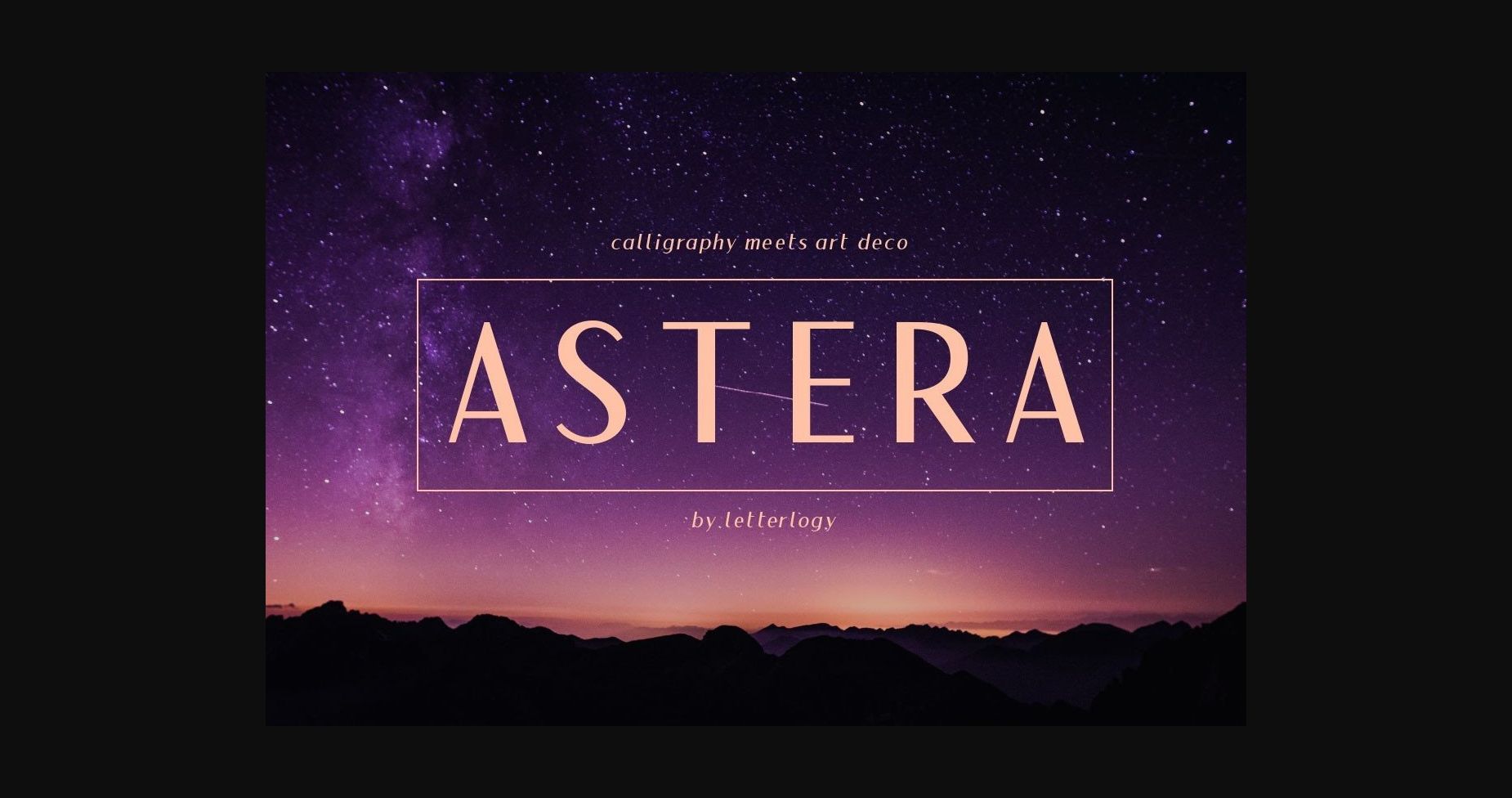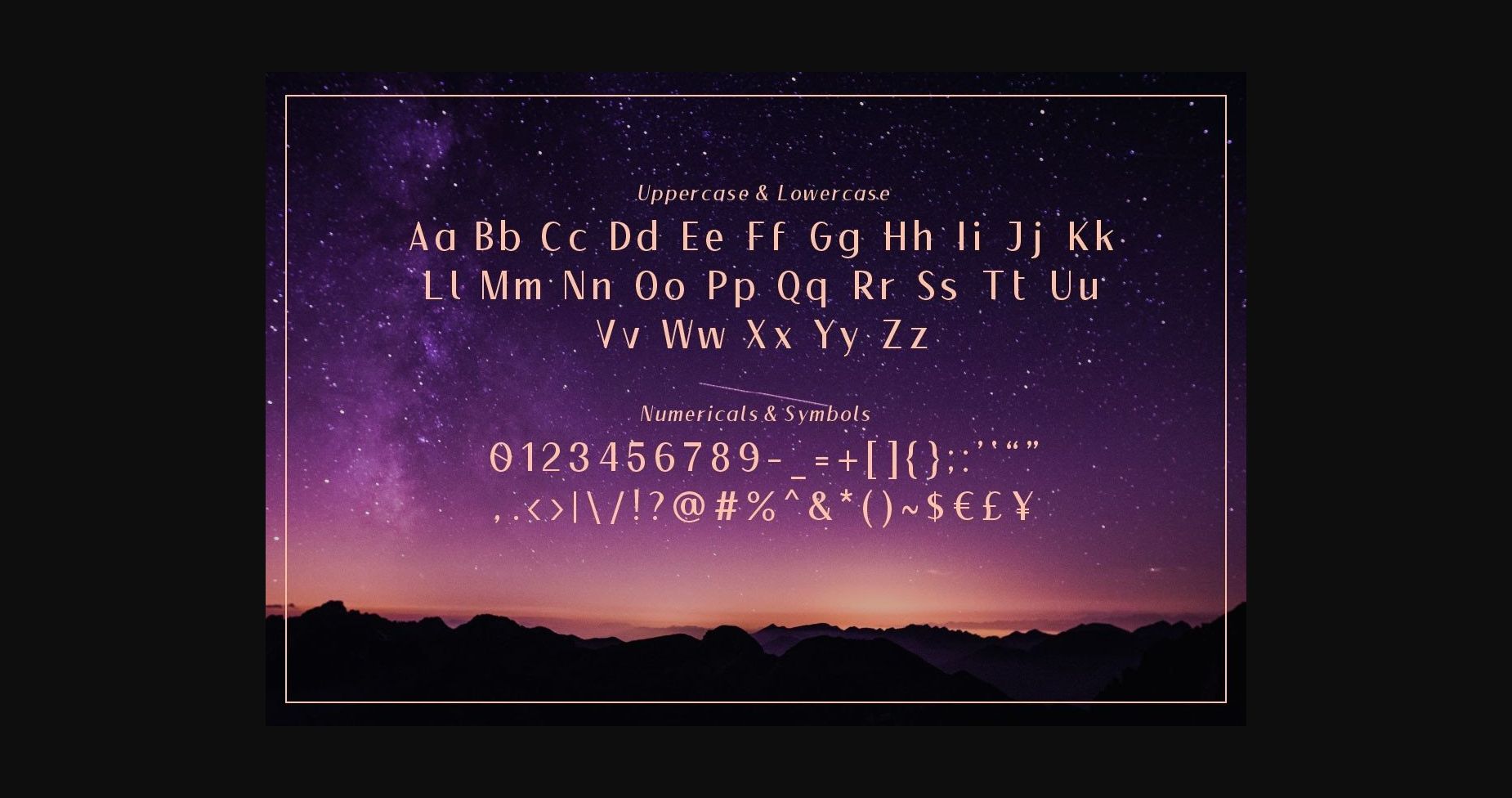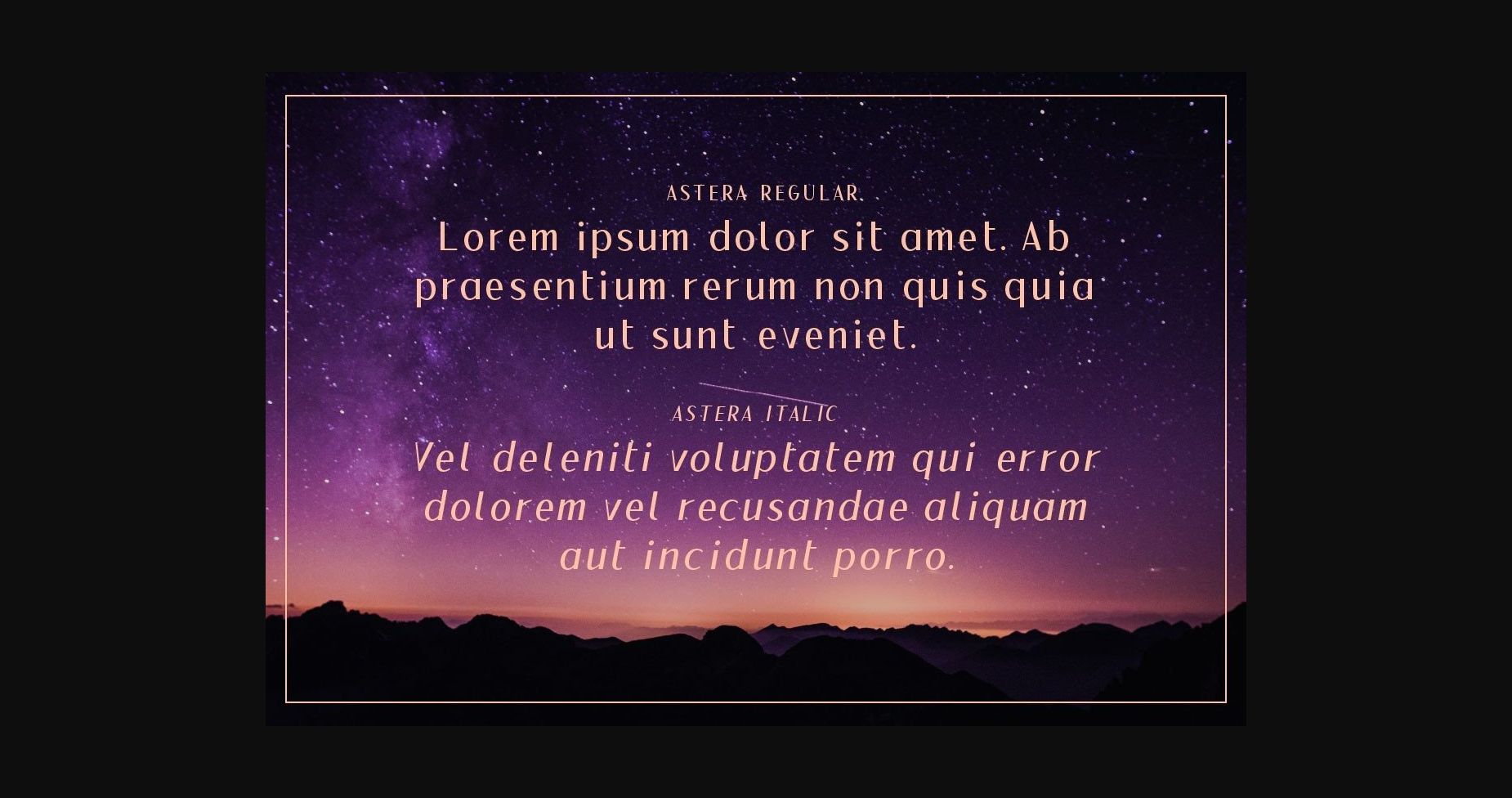
About Astera Font
Astera is a sans serif font that will bring elegance, class, and luxury to your designs. This font is the perfect companion to your branding, logos, and other stylish displays. Add it to any of your creative projects, and it will make them true works of art!